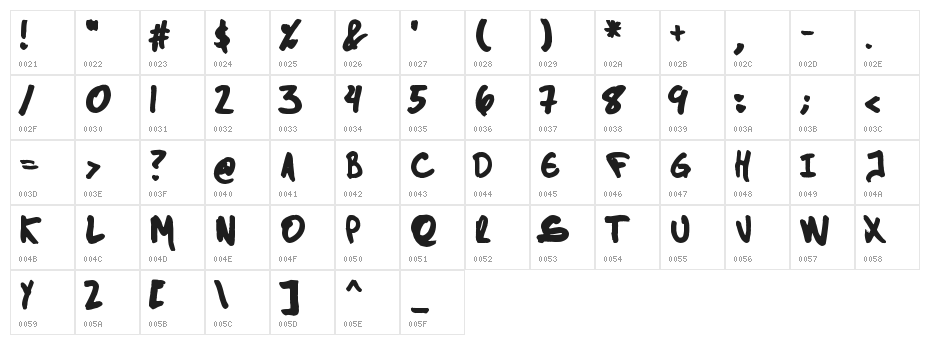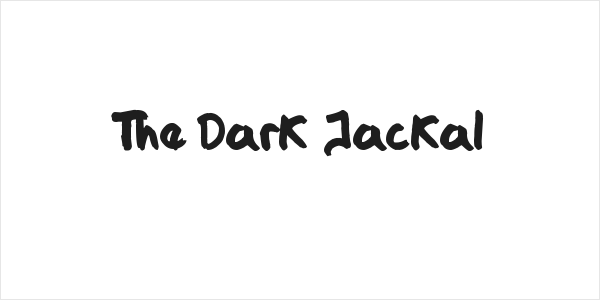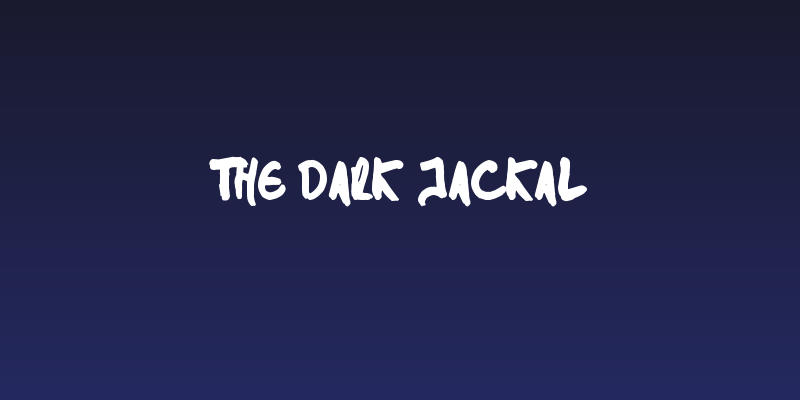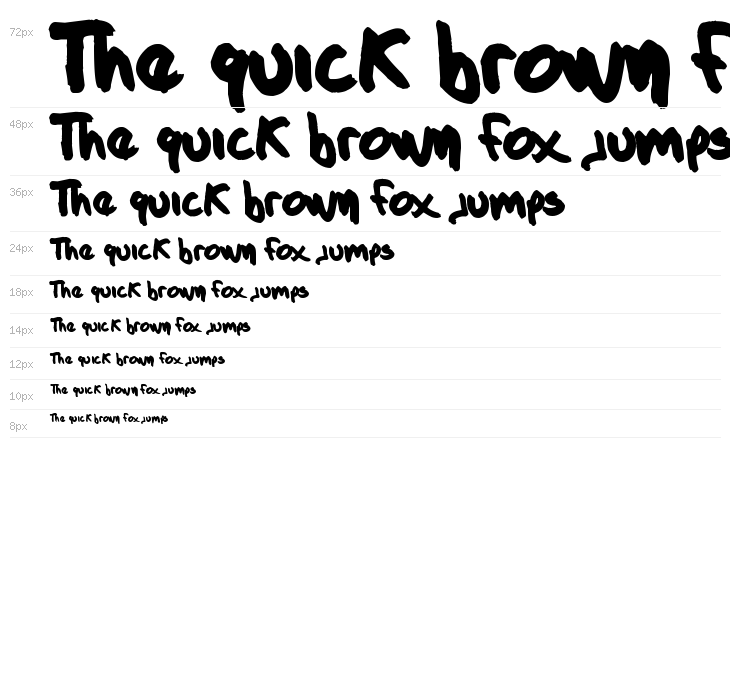
The Dark Jackal Font
The Dark Jackal Description
This font features a bold, hand-drawn style with a distinctly rough and expressive appearance. The characters are thick and irregular, giving them a dynamic and energetic feel. The uppercase and lowercase letters maintain a consistent weight, while the numbers and special characters follow the same bold and playful design. The strokes are uneven, adding to the font's informal and artistic vibe. This font is ideal for projects that require a strong, eye-catching display with a personal touch.
| Proposed Projects | Perfect for posters, album covers, graffiti art, and creative branding. |